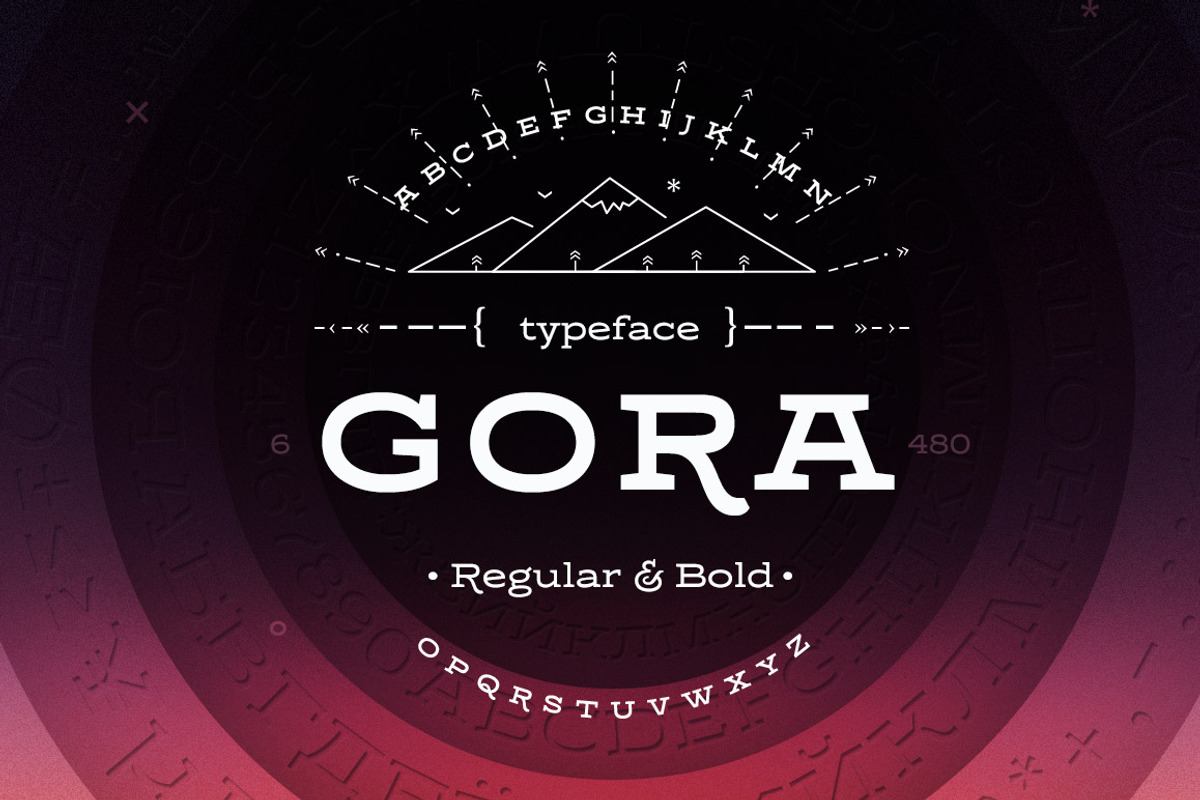
Gora – Regular & Bold Font Free Download is a versatile typeface designed to bring strength and clarity to your designs. Featuring both regular and bold weights, this font is perfect for creating impactful logos, headlines, branding, posters, and social media content. The clean, modern design ensures that your message stands out with precision and professionalism, making it ideal for both corporate and creative projects. Whether you’re working on a corporate identity, a marketing campaign, or a website design, Gora – Regular & Bold Font Free Download lets you explore its dynamic style in personal projects before purchasing a commercial license. Add modern sophistication and boldness to your designs with this beautifully crafted font.